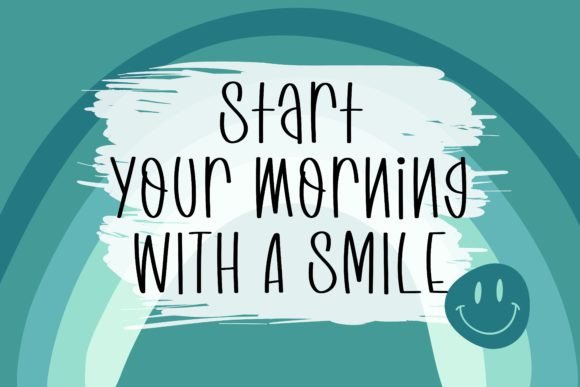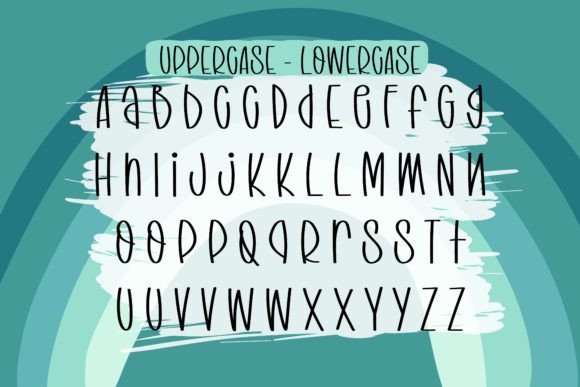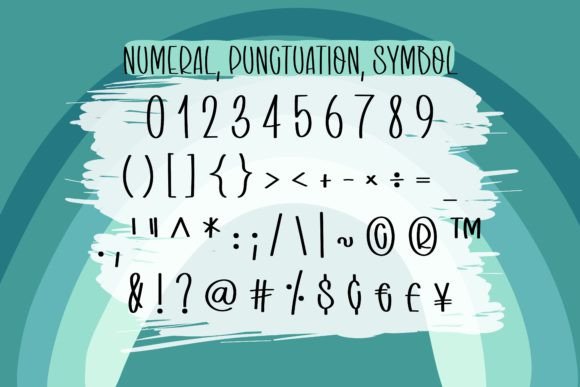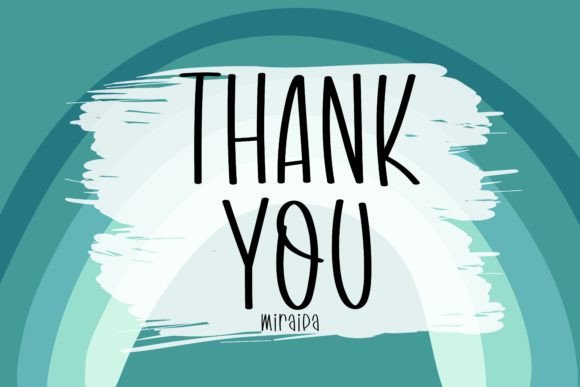
Introduction to Mint Rainbow Font
Mint Rainbow is designed in a cute and friendly handwritten sans serif font style.
Key Features of Mint Rainbow Font